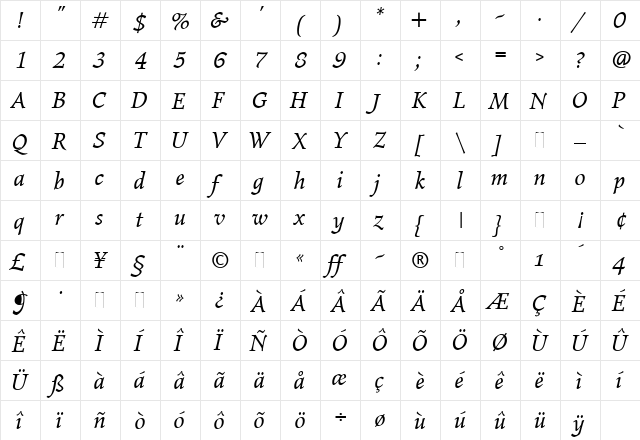
Elysium Book Italic
Design Context for Elysium Book Typeface
Elysium Book offers clean, dependable letterforms without strong stylistic allegiance, making it a practical choice for designers who need flexibility. Its italic angle brings a sense of urgency and motion to the letterforms.
Pro Tip: Try Elysium Book for annotation and caption copy alongside an upright companion — the contrast in angle creates a dynamic but ordered typographic system.